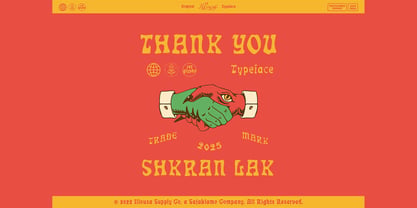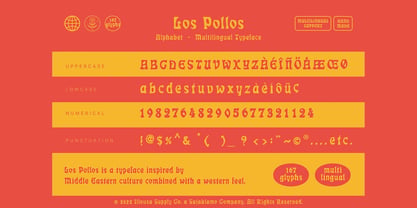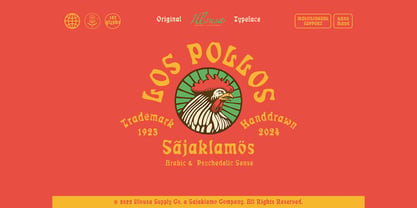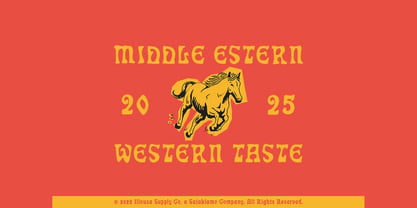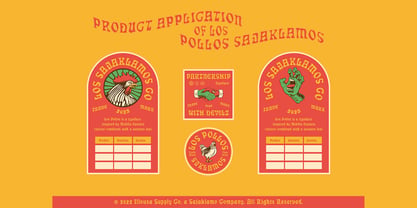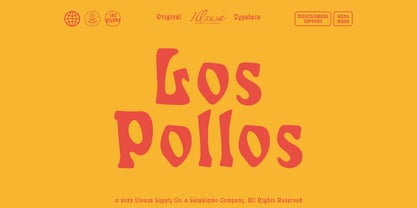
SCC Los Pollos
by Illousa Supply Co
The SCC Los Pollos Font Family was designed by Ilham Afrora and published by Illousa Supply Co. SCC Los Pollos contains 1 styles. More about this family
Los Pollos is a bold, hand-drawn typeface that combines vintage charm with a truly global character. Inspired by the flowing forms of Arabic script and infused with psychedelic vibes, it delivers a unique, expressive personality that stands out in any project. With support for multiple languages, Los Pollos is ideal for logos, posters, packaging, and creative branding. The font includes uppercase, lowercase, and a selection of punctuation, giving designers versatile tools to craft distinctive and memorable designs
Designers: Ilham Afrora
Foundry: Illousa Supply Co